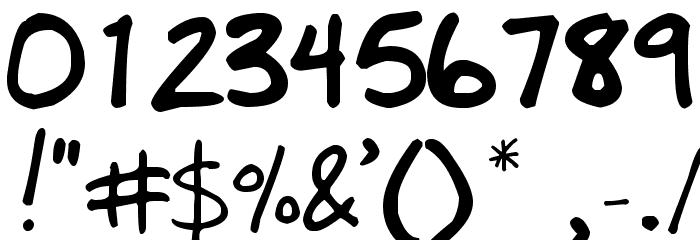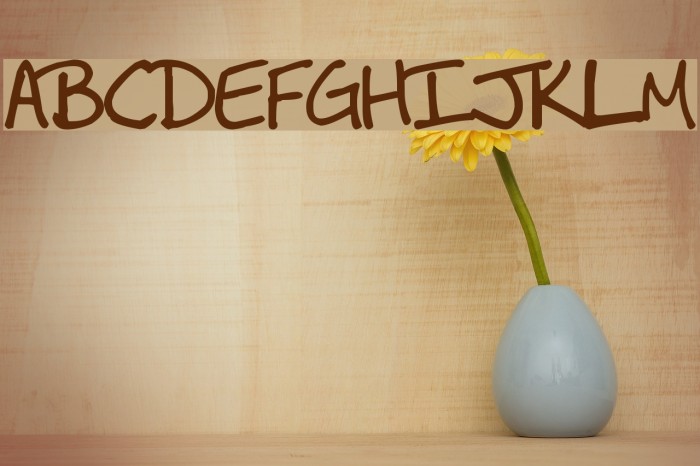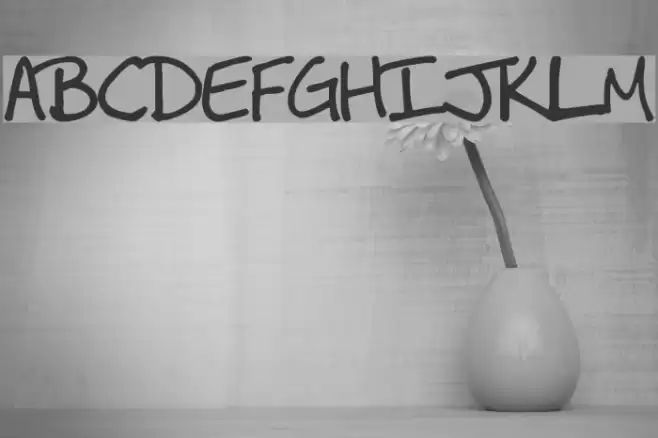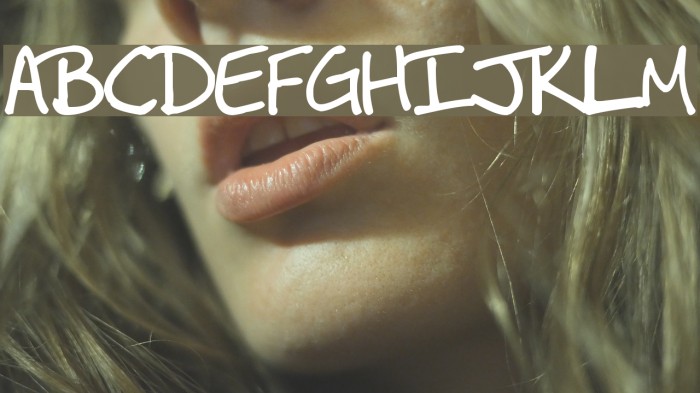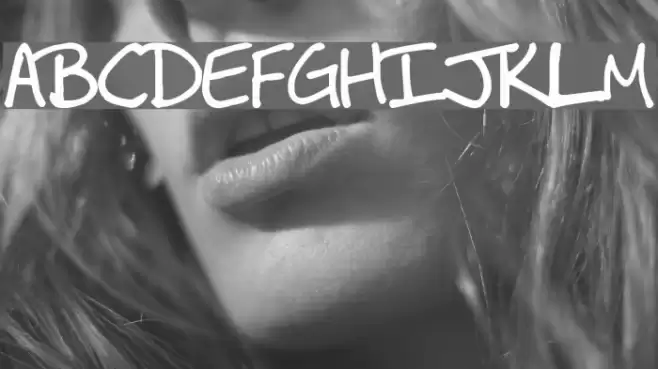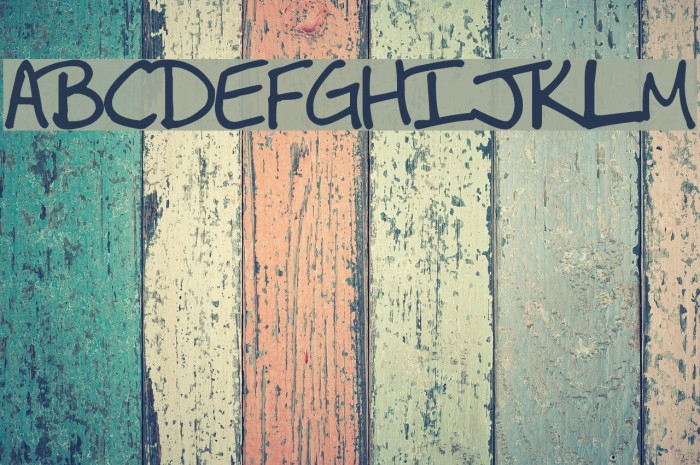
MDBurnette Font
This font features a bold and dynamic handwritten style, characterized by its playful and informal appearance. The letters are slightly slanted, giving a sense of movement and energy. The strokes are thick and consistent, with rounded edges that add a friendly and approachable feel. The numerals and special characters maintain the same lively style, ensuring uniformity across all elements. This font is highly legible, making it suitable for various creative applications where a personal touch is desired.
A bold, dynamic handwritten font with a playful and informal style.
• Proposed Projects: Ideal for greeting cards, children's books, casual branding, and social media graphics.